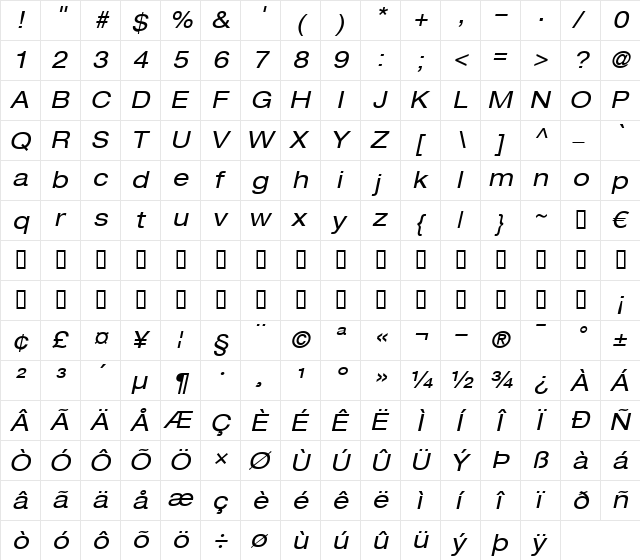
HelveticaNeue LT 53 Ex Oblique Font Preview
Design Context for HelveticaNeue LT 53 Ex Typeface
HelveticaNeue LT 53 Ex takes a measured approach to typography — its balanced proportions and neutral character make it a reliable workhorse for both digital and print work. The dynamic lean of this cut emphasises speed and emphasis in any layout. The delicate stroke weight brings airiness and refinement to layouts.
Pro Tip: Use HelveticaNeue LT 53 Ex for emphasis, pull quotes, and subheadings where its slanted energy can add rhythm to the layout.